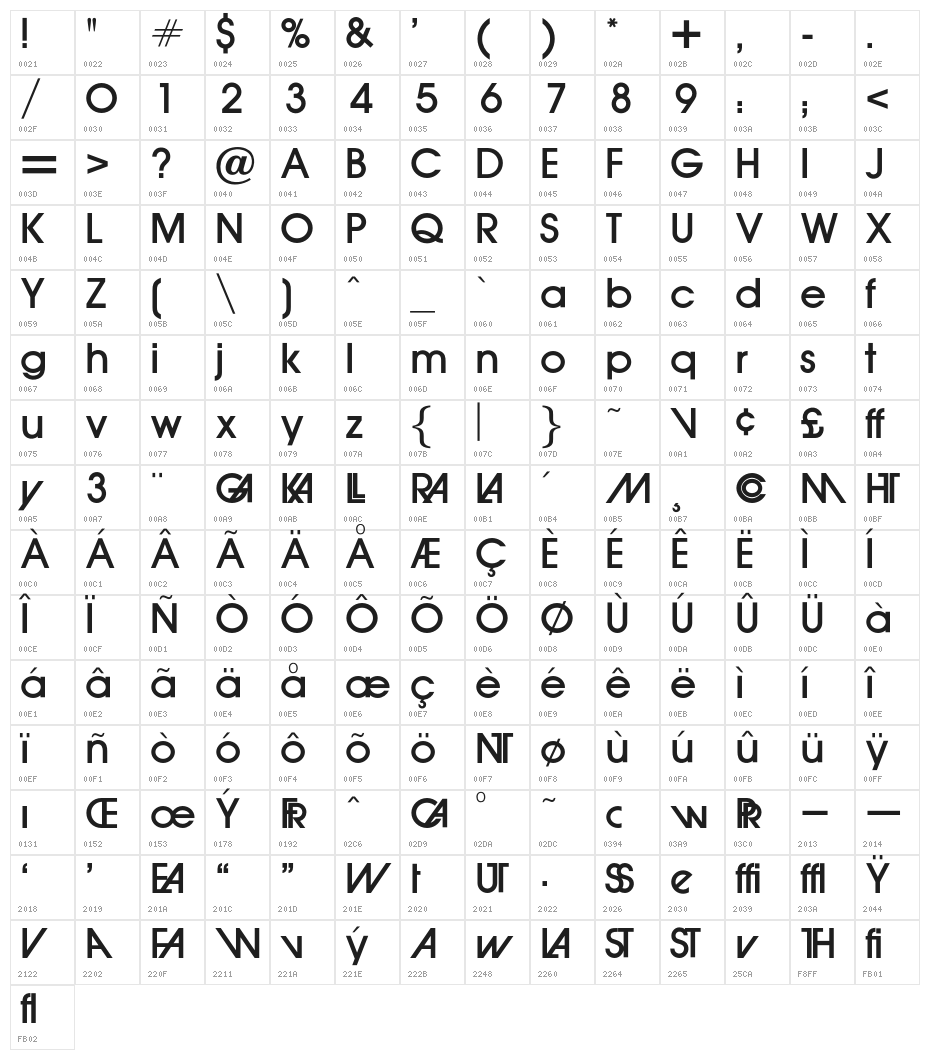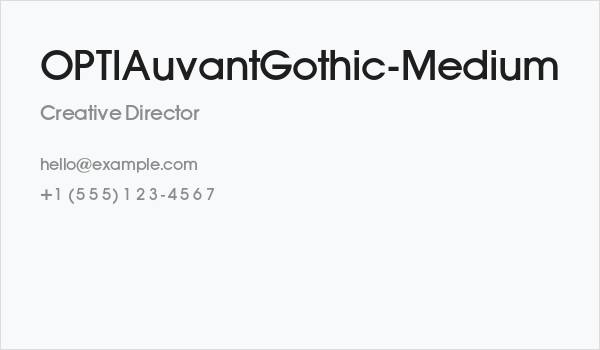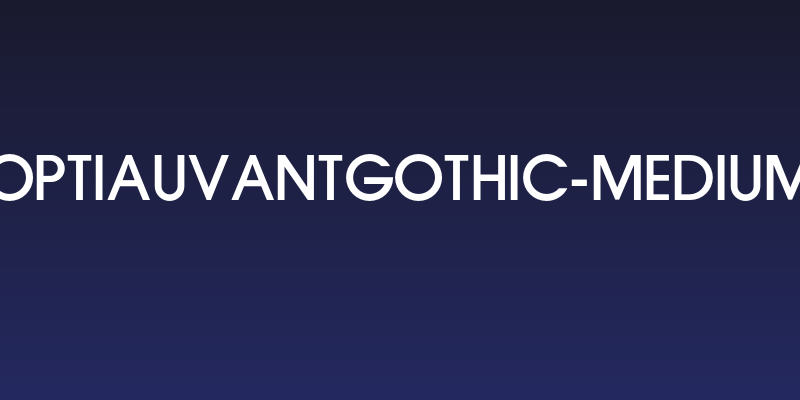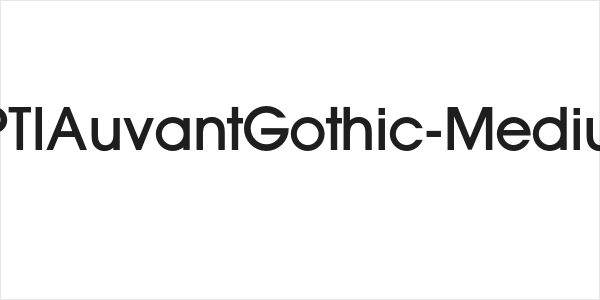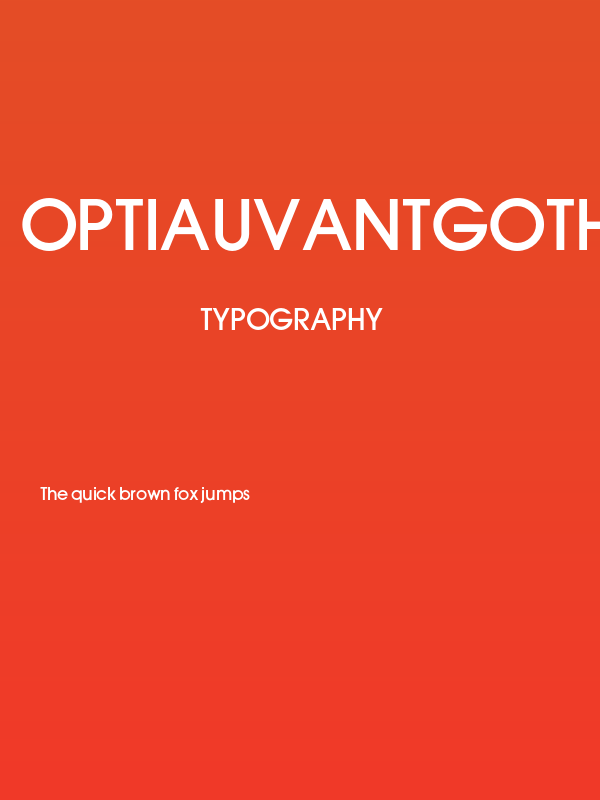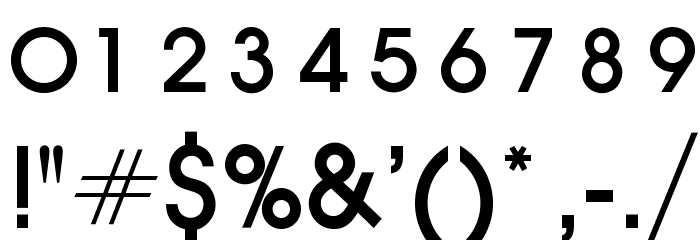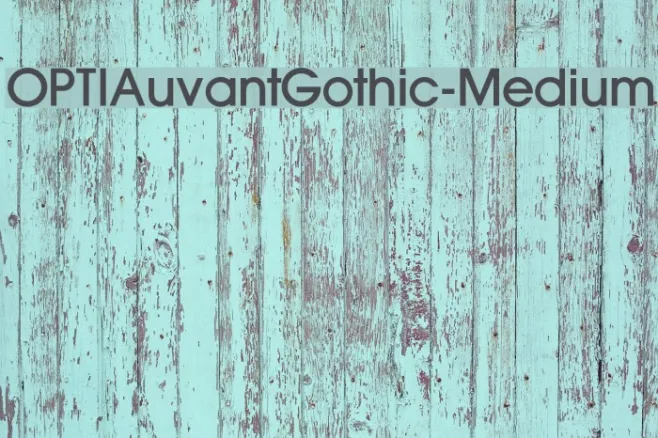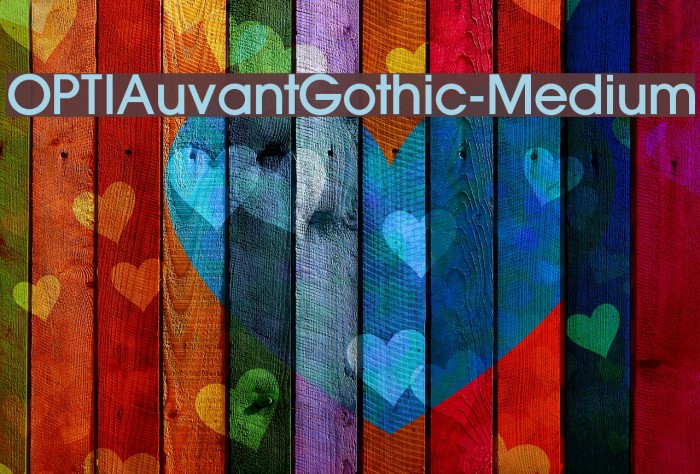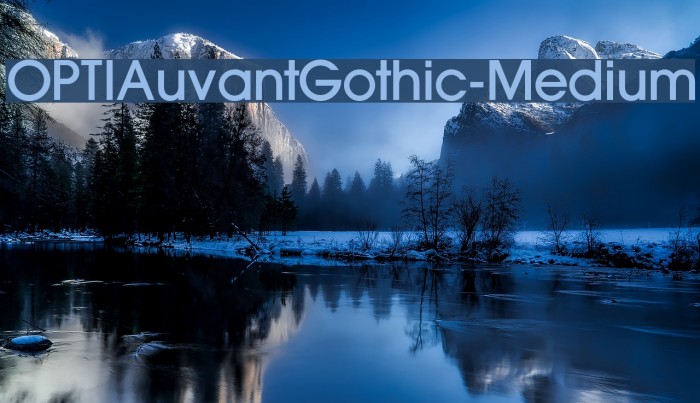
OPTIAuvantGothic-Medium Font
OPTIAuvantGothic-Medium Description
This font features a clean and modern sans-serif style with uniform stroke widths, giving it a sleek and contemporary appearance. The characters are well-proportioned, with a geometric influence evident in the circular shapes of the 'O' and 'C'. The uppercase letters are bold and assertive, while the lowercase letters maintain a consistent height and spacing, enhancing readability. The numerals are clear and distinct, matching the overall aesthetic of the font. Special characters are designed with precision, maintaining the font's cohesive look.
| Proposed Projects | Ideal for branding, digital interfaces, advertising, and editorial design due to its modern and clean aesthetic. |